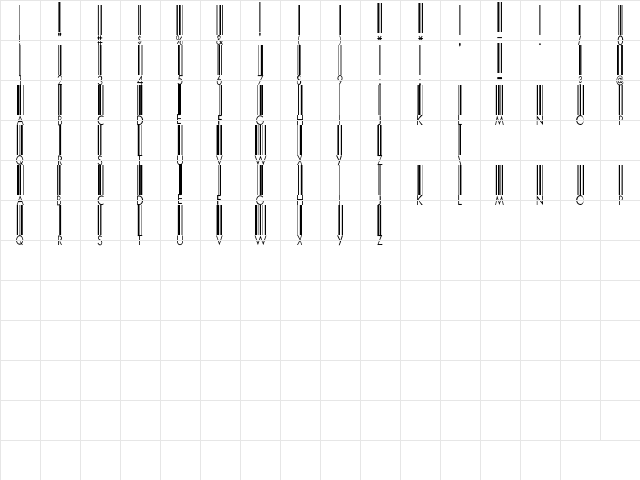
2Peas Price Check 2Peas Price Check Free Font
2Peas Price Check 2Peas Price Check
Style: 2Peas Price Check
Design Context for 2Peas Price Check
2Peas Price Check is a composed and adaptable typeface that performs quietly and consistently across a wide range of design contexts.
Pro Tip: Use 2Peas Price Check in both headline and body roles to test its range before committing to a single application.